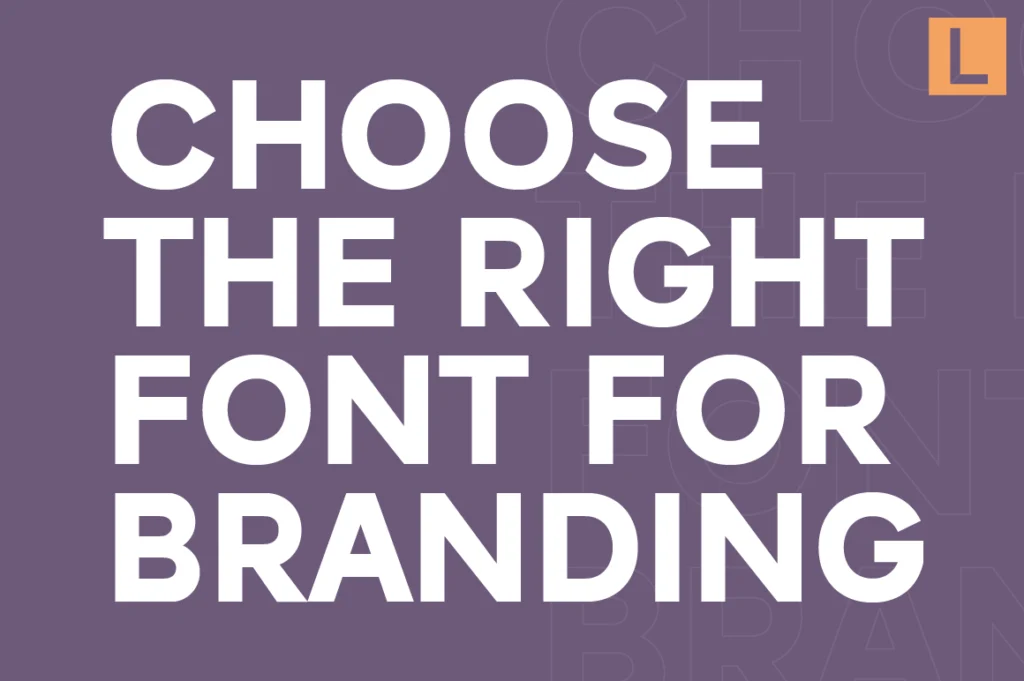
How to Choose the Right Font for Your Brand (Complete Guide 2026)
Choosing the right font for your brand is one of the most overlooked decisions in design—yet it has one of the biggest impacts.
Your typography is not just a visual choice. It shapes how people perceive your brand before they even read a single word.
A strong font builds trust. The wrong one creates confusion.
Why Font Choice Matters More Than You Think
When someone sees your brand for the first time, they subconsciously judge:
• Is this brand professional?
• Is it modern or outdated?
• Can I trust it?
And most of that judgment comes from typography.
Fonts communicate tone instantly. A clean sans serif feels modern and efficient, while a decorative script might feel personal—but less scalable.
Step 1: Define Your Brand Personality
Before choosing any font, you need clarity on your brand identity.
Ask yourself:
• Is your brand modern or classic?
• Minimalist or expressive?
• Corporate or creative?
For example:
• Tech startups → clean, modern sans serif
• Luxury brands → elegant serif or high-contrast fonts
• Creative brands → unique or experimental typefaces
Your font should align with this personality—not fight it.
Step 2: Prioritize Readability and Versatility
A good font is not just beautiful—it works everywhere.
Your font needs to perform across:
• Logo
• Website
• Social media
• Mobile screens
• Print materials
If it looks good in a logo but fails in body text, it’s not a strong system.
That’s why many brands rely on well-built sans serif families—they scale easily across all formats.
Step 3: Choose a Font with a Strong System
Premium fonts are designed as systems, not just styles.
Look for:
• Multiple weights (Light → Bold)
• Consistent spacing
• Clear hierarchy potential
Fonts like Raela Pro, Lenia Sans, and Naru Sans are built with this in mind—making them reliable for long-term brand use.
Step 4: Avoid Overused or Generic Fonts
One of the fastest ways to make your brand look average is using overused fonts.
If everyone uses the same typeface, your brand loses distinction.
Instead, choose something:
• Clean but distinctive
• Familiar but not generic
• Unique but still readable
That balance is what creates a premium feel.
Step 5: Test Before You Commit
Always test your font in real scenarios:
• Logo mockups
• Website headers
• Social media posts
• Packaging (if applicable)
Sometimes a font looks perfect in isolation—but fails in real application.
Testing helps you avoid costly rebranding later.
Common Mistakes to Avoid
• Choosing based on trend only
• Ignoring readability
• Mixing too many fonts
• Using decorative fonts for core branding
Keep it simple. Strong brands are built on consistency.
Final Thoughts
Your font is your brand’s voice in visual form.
Choosing the right one is not about picking what looks good today—it’s about selecting what will still feel right years from now.
If you invest in a well-crafted, versatile typeface, you’re not just choosing a font—you’re building a foundation for your entire brand identity.